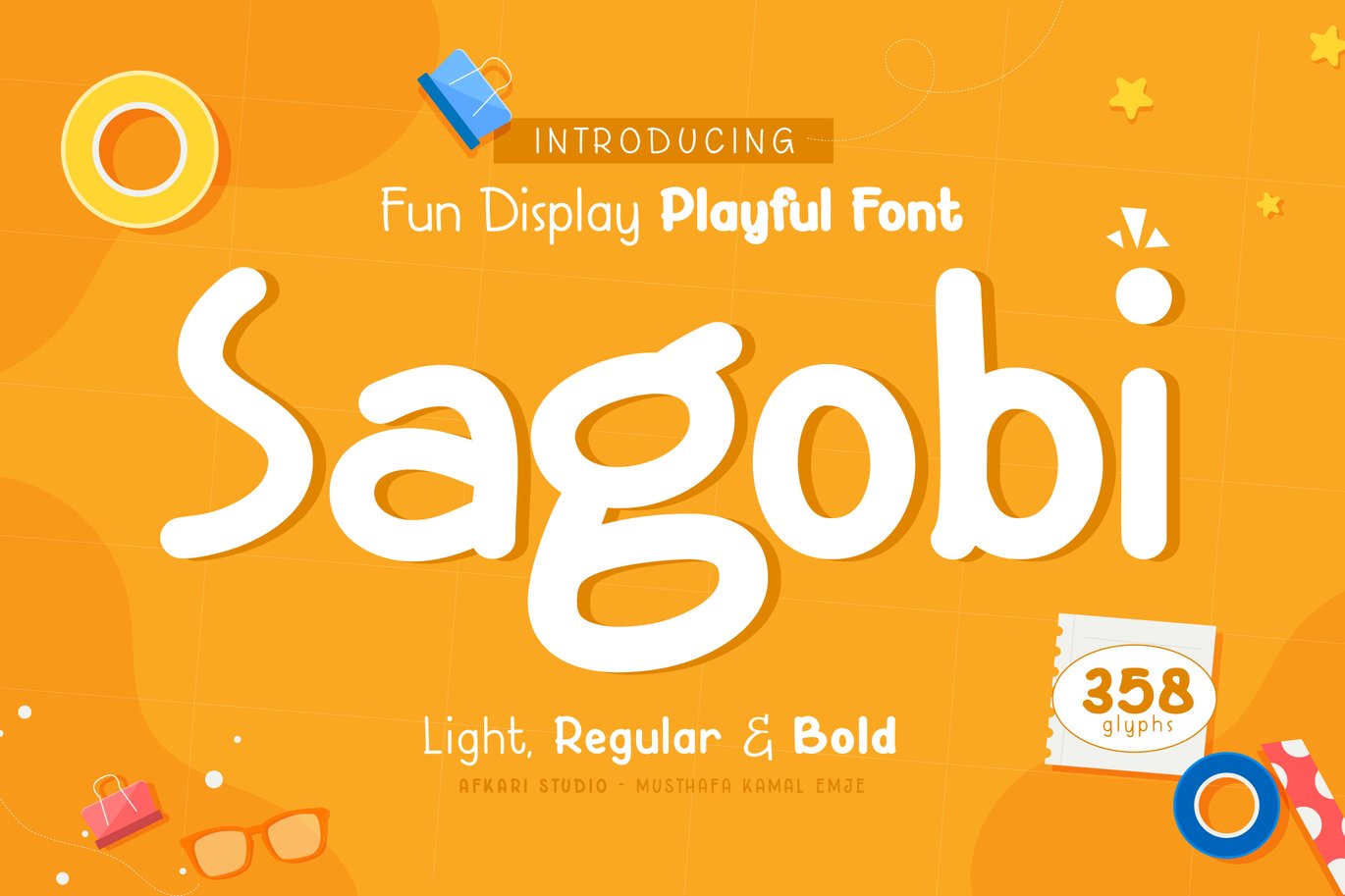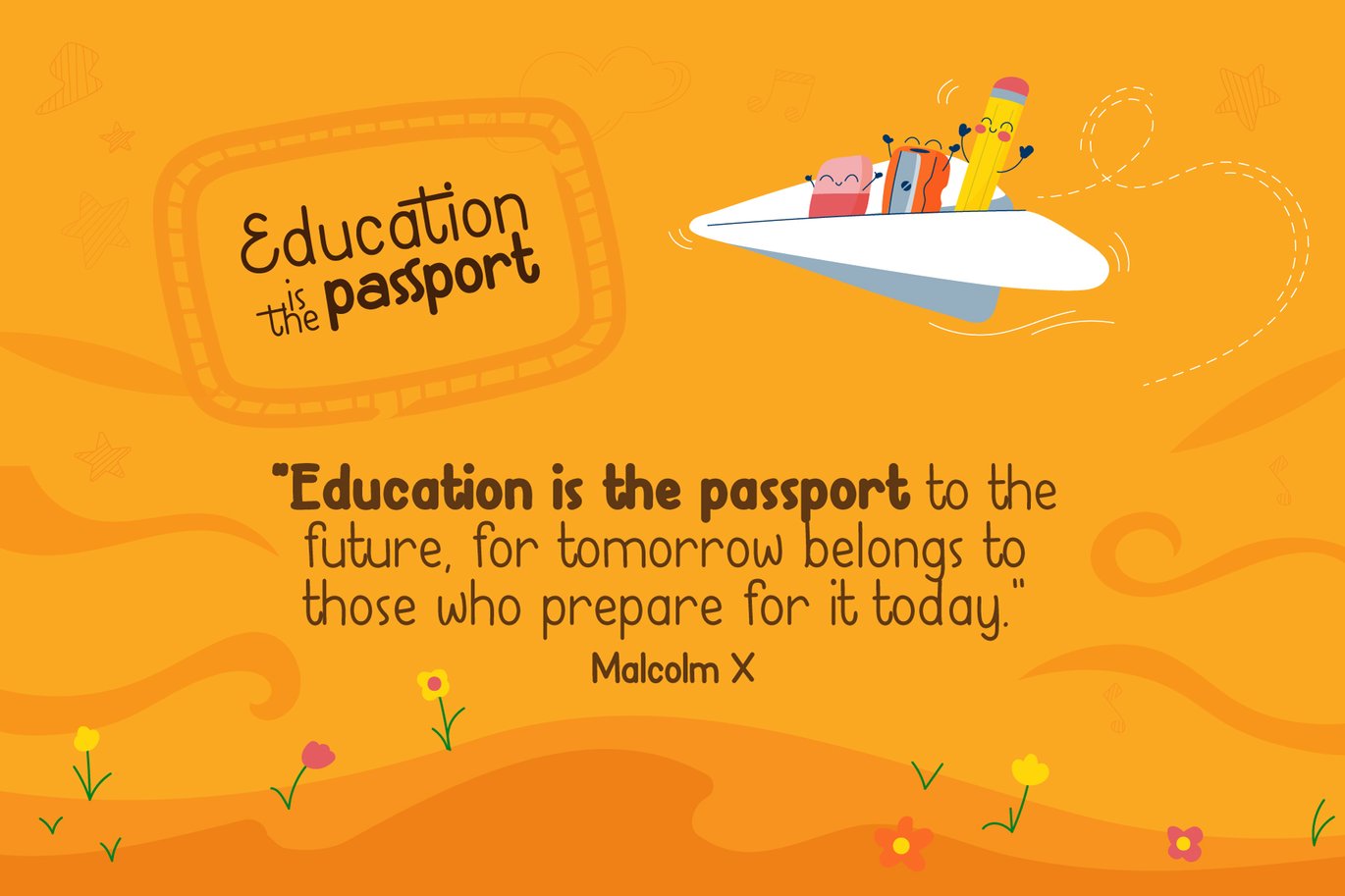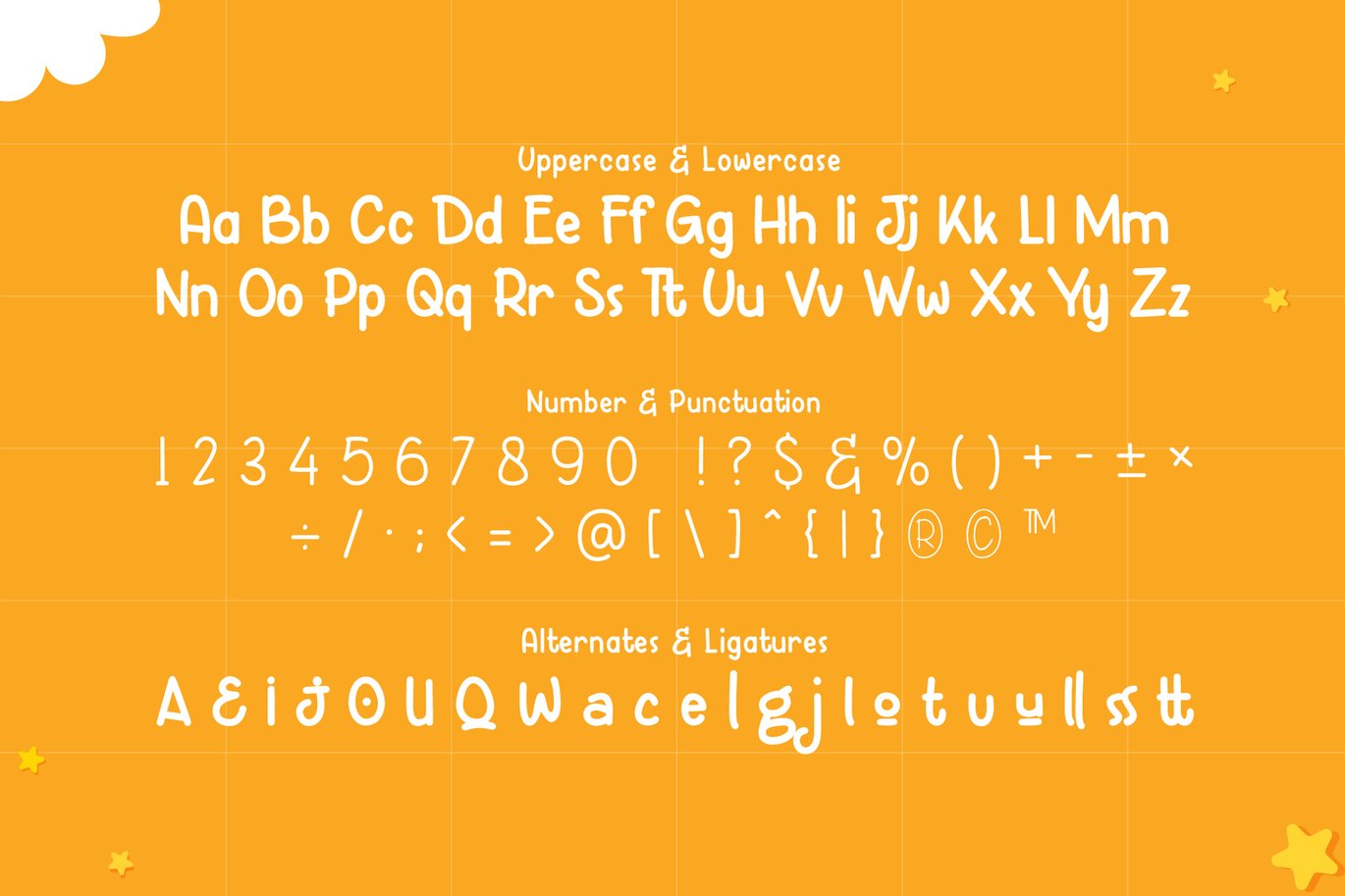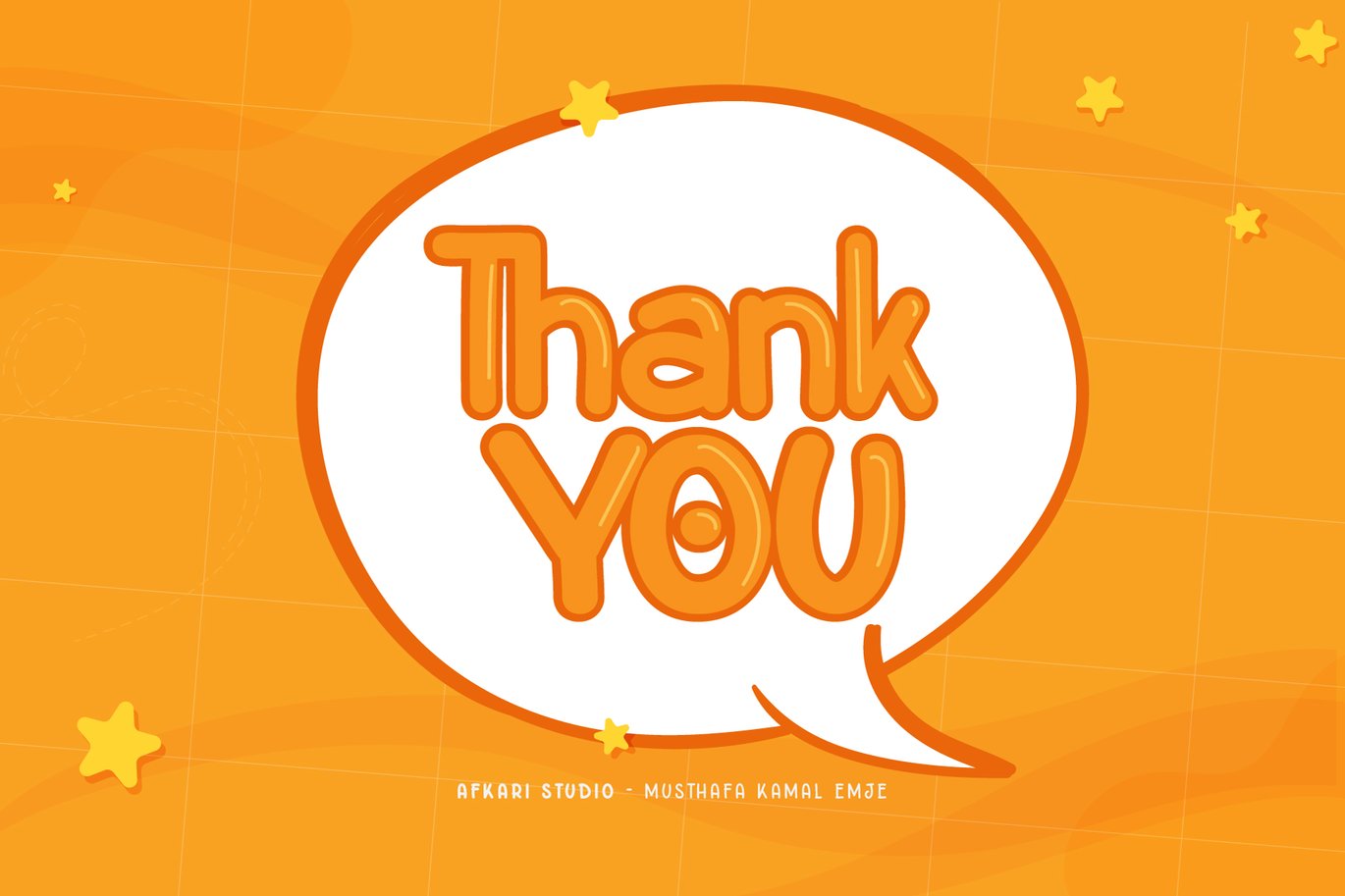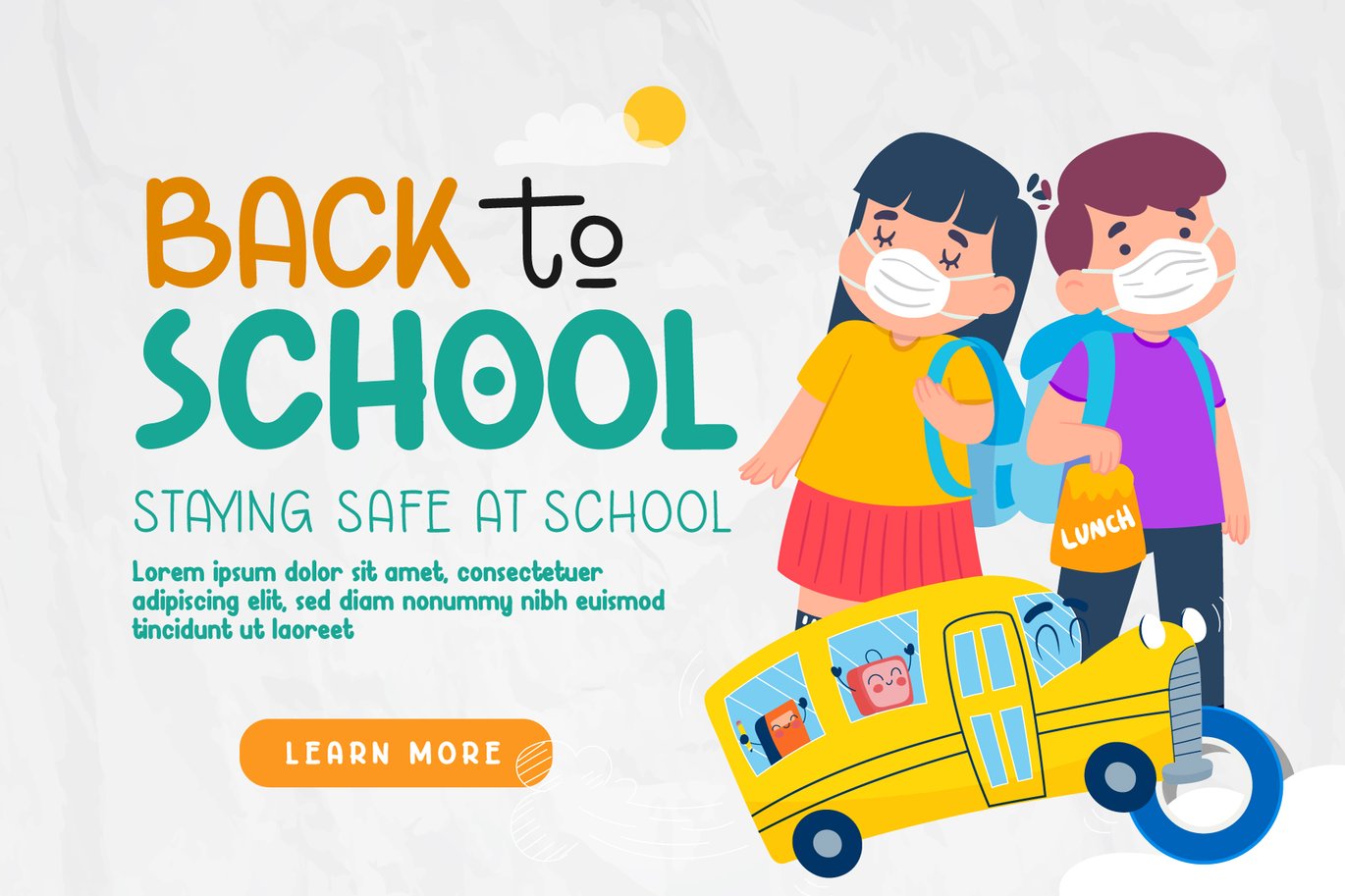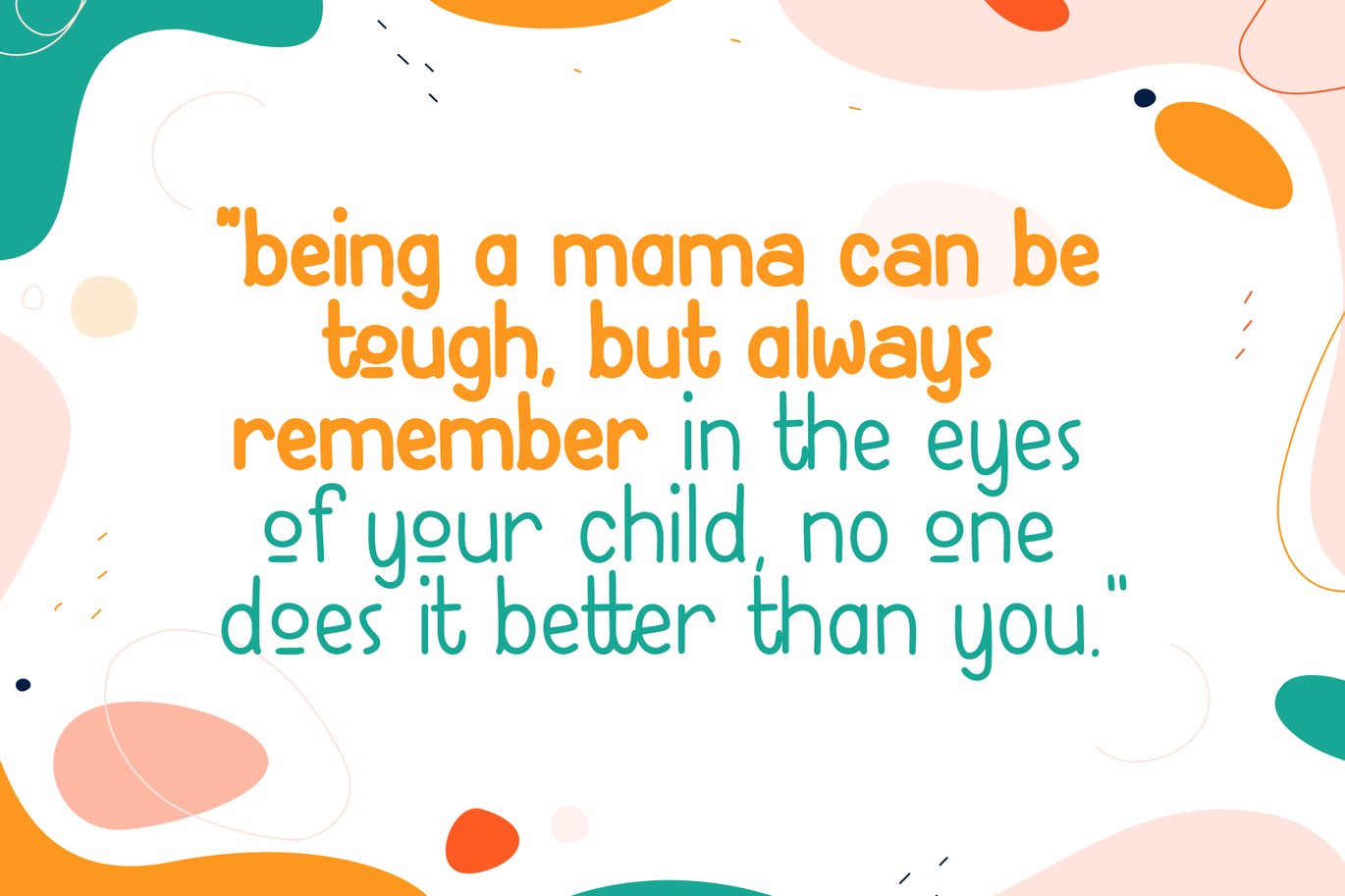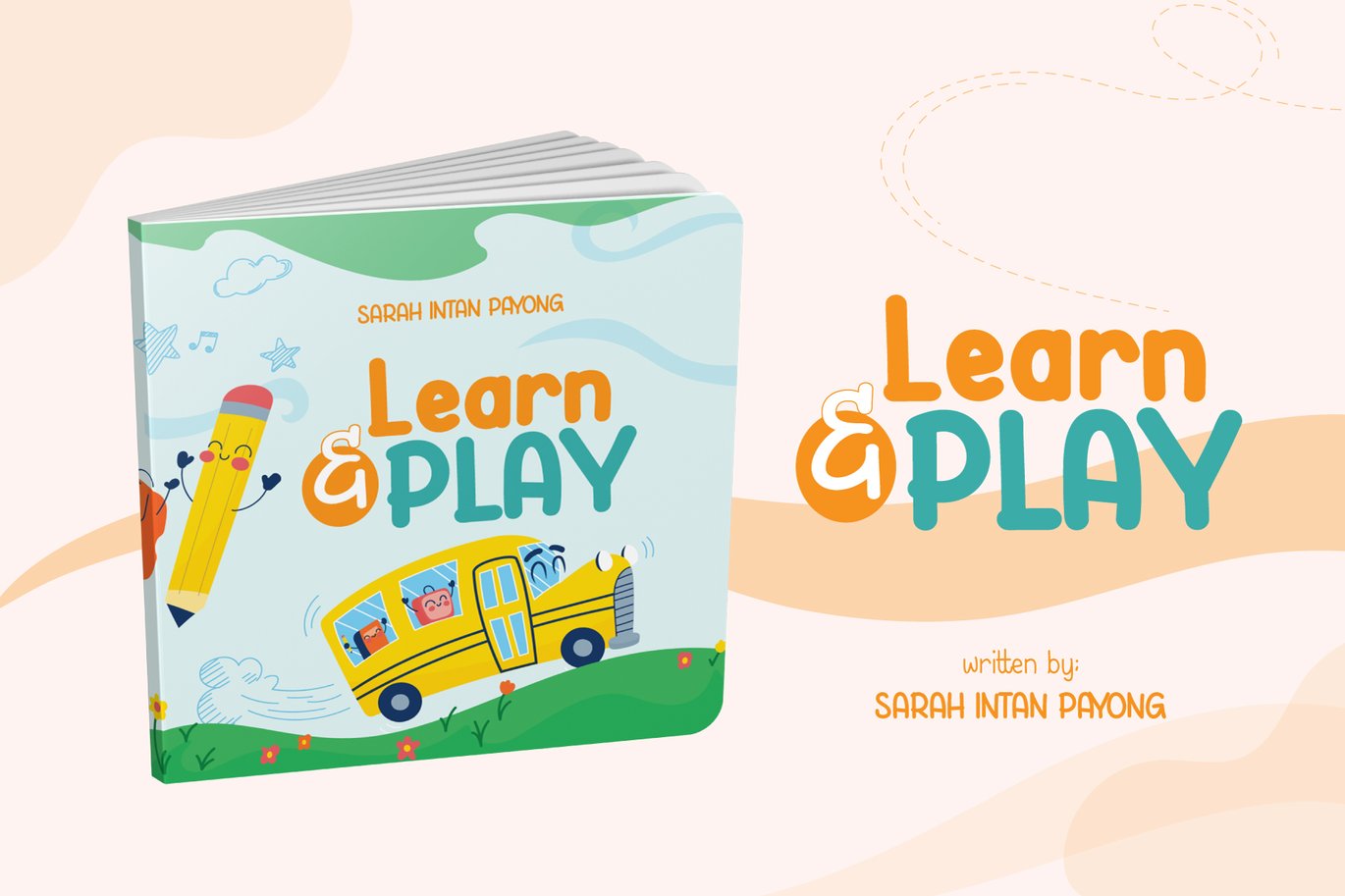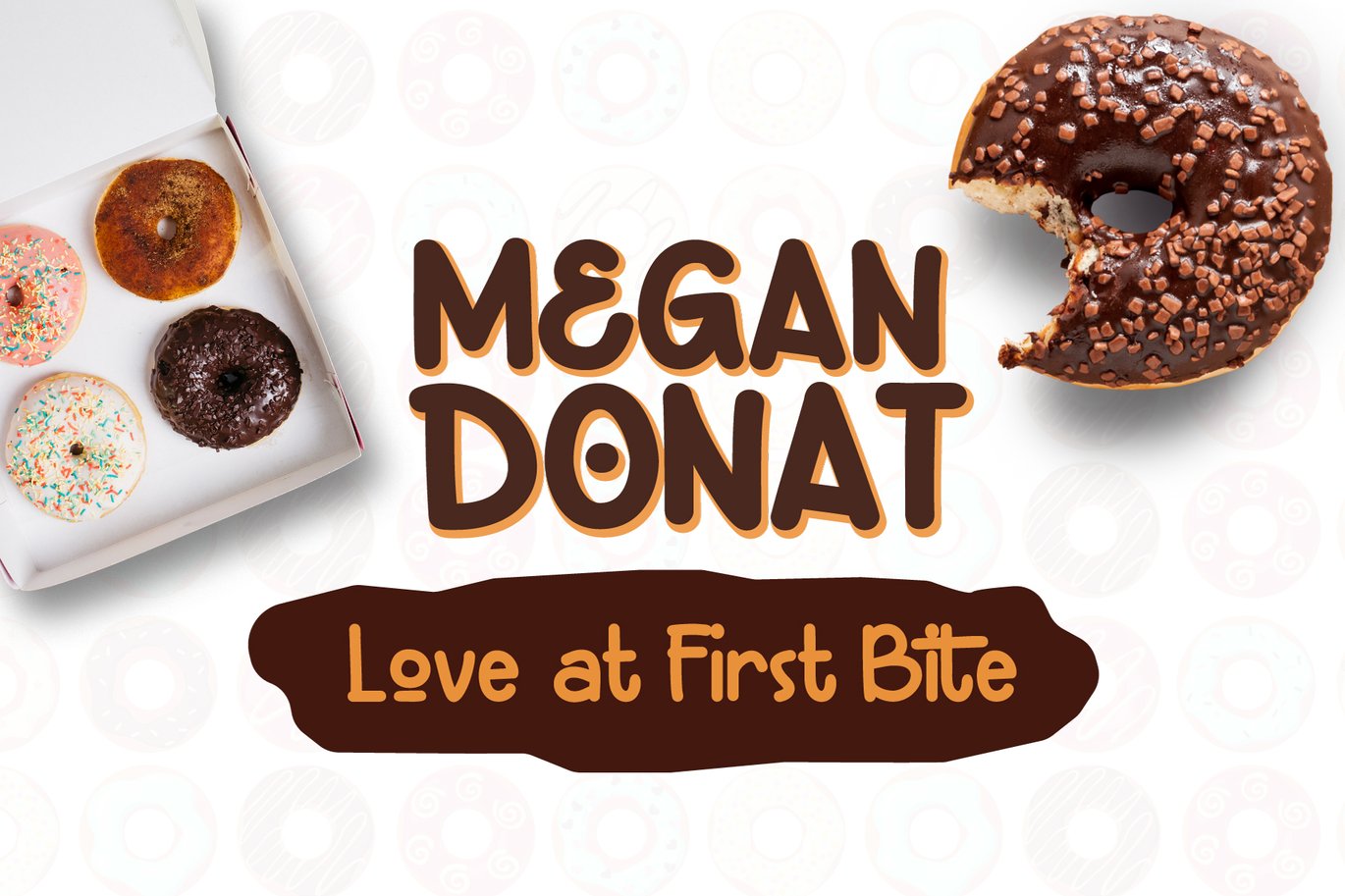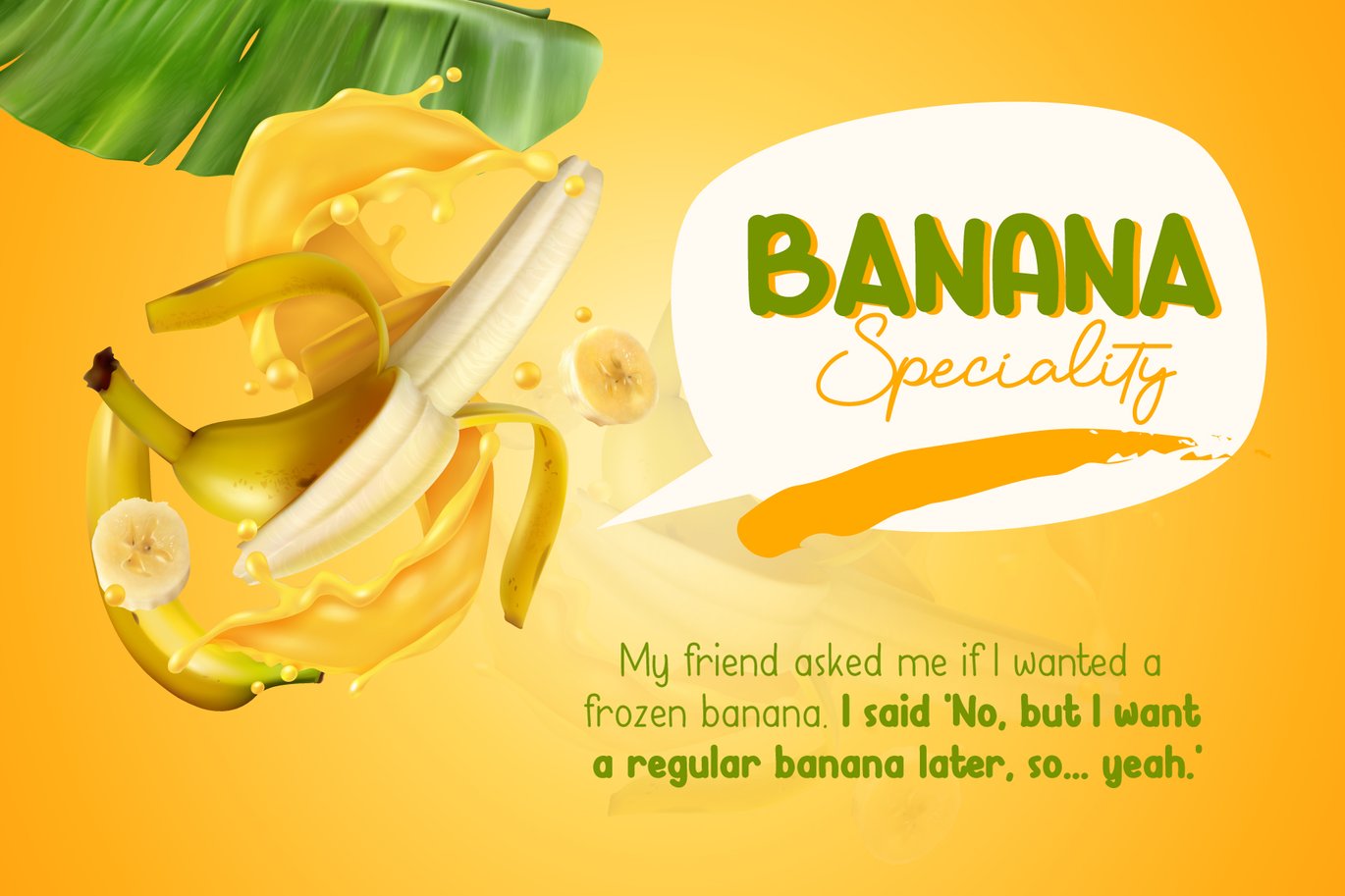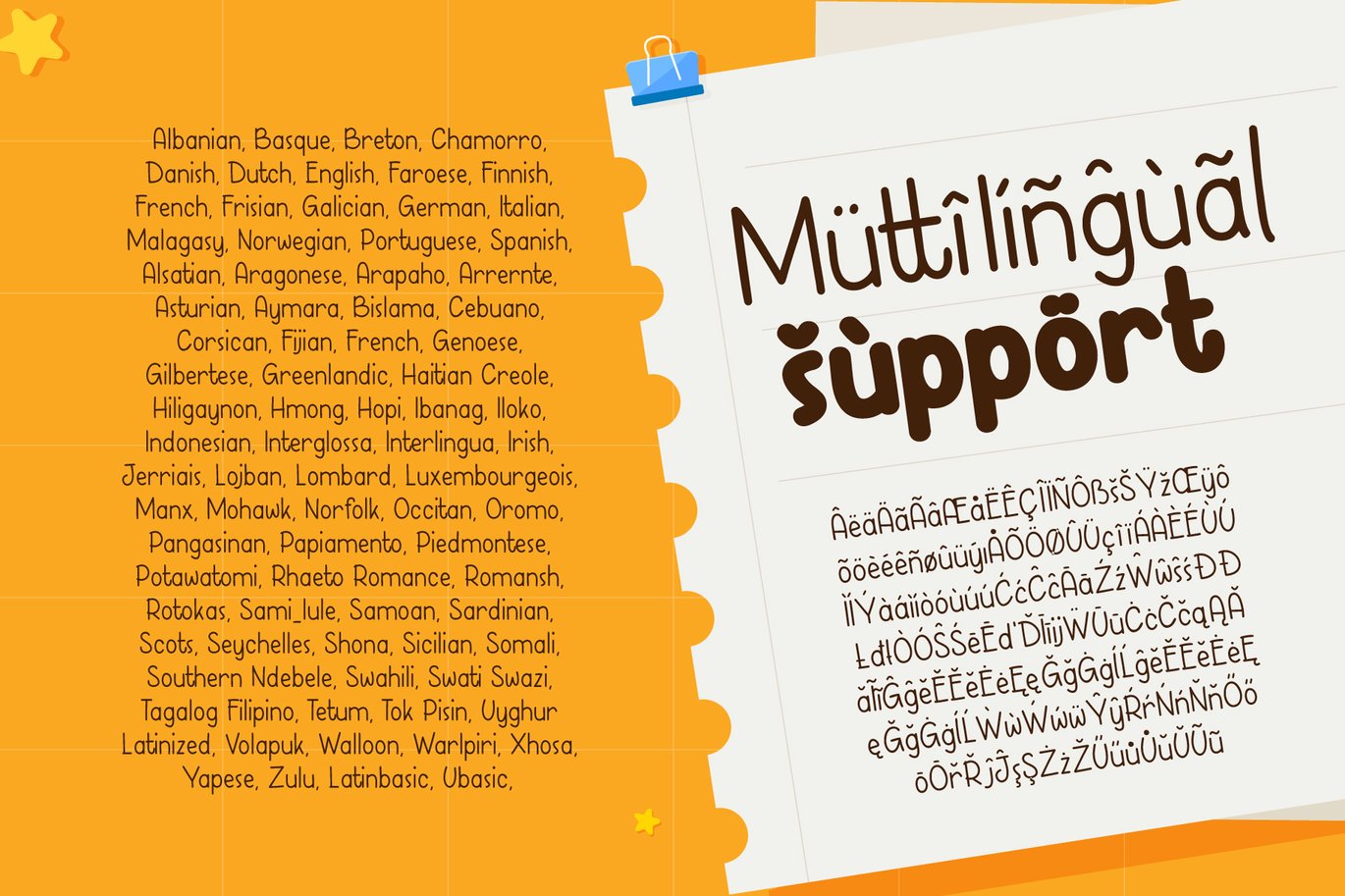
Sagobi Fun Display Playful Font
Sagobi is a fun display playful font created with natural handwritten type with 3 alternates weights; light, regular and bold.
Sagobi Playful Display Font is suitable for greeting cards, invitations, posters, baby clothing, books cover, quotes, logos, presentations, headline, etc. Sagobi will turn any creative idea into a true piece of art and is ready to make your design looks great and fun!
Features;
– 3 Weights; Light, Regular, and Bold
– Standart and special ligatures
– Uppercase, Lowercase, Number, and Punctuation
– Mültîlíñgúãl Sùppört for; ä ö ü Ä Ö Ü ß ¿ ¡